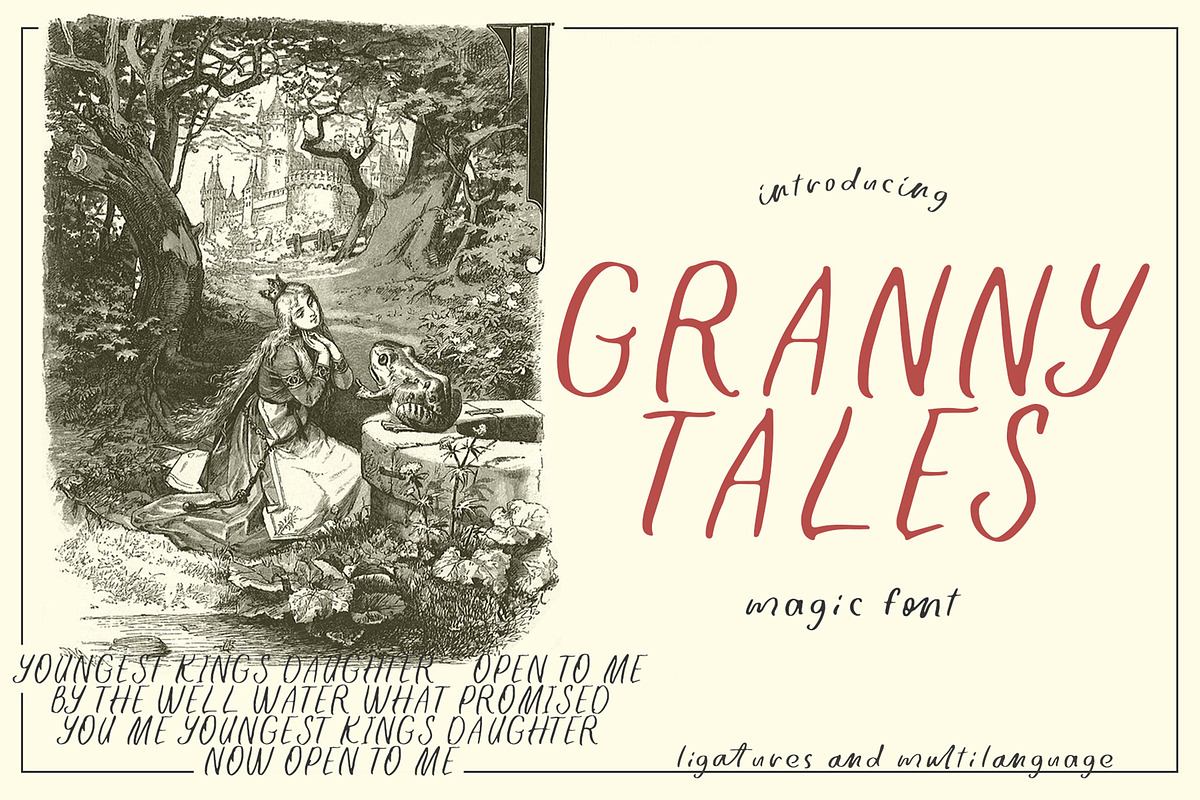
Granny Tales Font Free Download is a charming and whimsical typeface inspired by classic storybook lettering. With its playful, rounded edges and vintage feel, this font is perfect for children's books, playful branding, invitations, and anything that needs a nostalgic yet fun vibe.
The Granny Tales font brings a sense of warmth and coziness, evoking memories of bedtime stories and fairy tales. Whether you're designing a children’s book cover, a family event invitation, or whimsical product packaging, this font adds a sweet, nostalgic touch to your projects.
Add the warmth and playfulness of Granny Tales to your designs and let the storytelling begin!